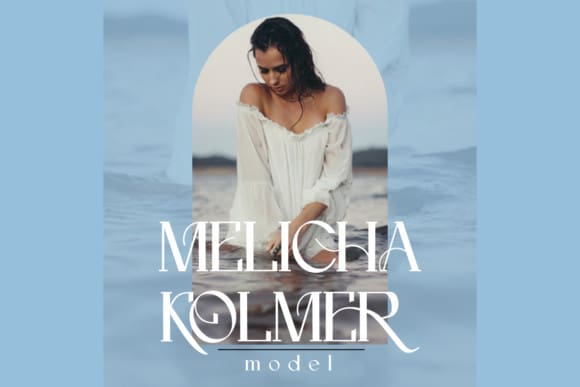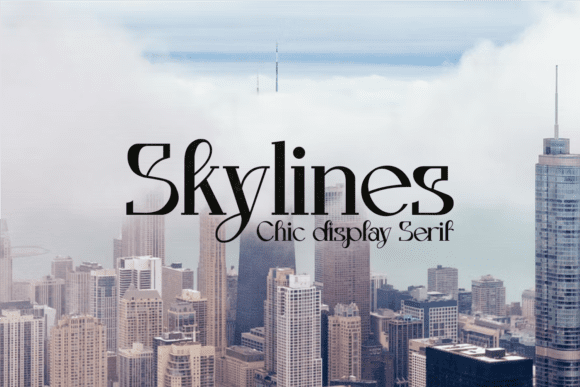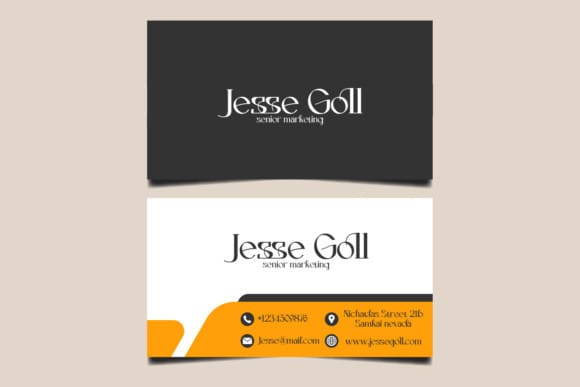
Skylines Font
Skylines Font – a chic modern serif with letters that seem to accentuate their character. Lots of ligatures for both uppercase and lowercase, as well as several alternates, to add typographical style to your designs. To access these OpenType features, you need software that supports Opentype such as Word, Textedit, Photoshop, Sketch, Pages, Keynote, Numbers, iBooks Author, QuarkXPress, Indesign, and Illustrator. A wide variety of useful glyphs are included – see preview images of all glyphs.